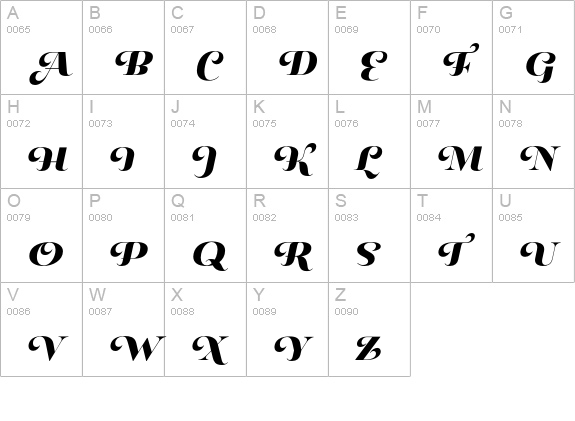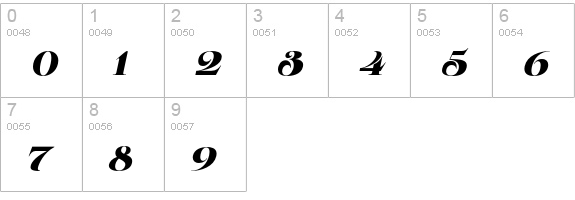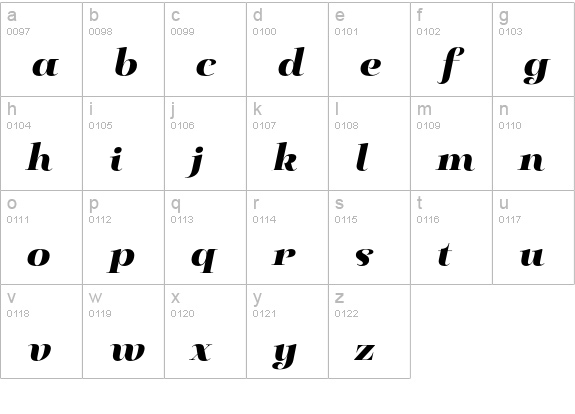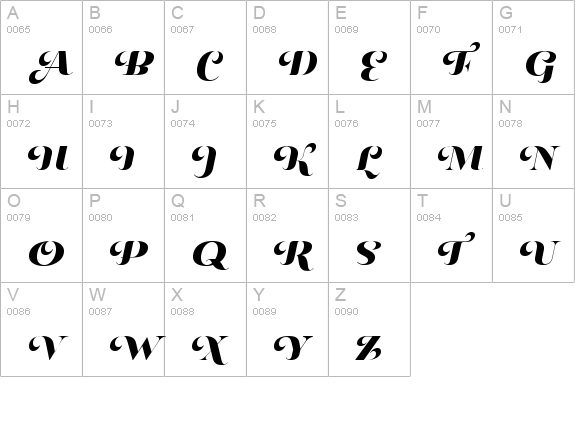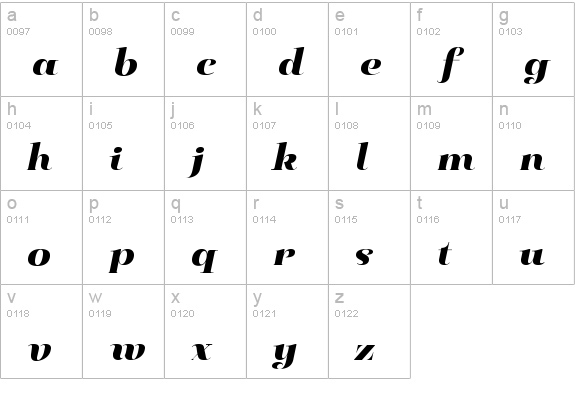
Pauline Didone Black Italic Font Details
Pauline Didone Black Italic is a maximum-weight, dramatic, italic variant in the Pauline typeface family \xE2\x80\x94 well suited to maximum-impact headlines, posters, and packaging.
Pauline Didone Black Italic font is a stunning display typeface that exudes elegance and sophistication. With its sleek and modern design, this font is perfect for adding a touch of luxury to your designs. The italic style adds a dynamic and stylish flair, making it ideal for headlines, logos, and branding projects. This font features sharp, clean lines and a timeless aesthetic that will elevate any design project. Whether you're creating a fashion magazine, luxury brand packaging, or elegant wedding invitations, Pauline Didone Black Italic font will make a bold statement. Best of all, this exquisite font is available for free download at FontsMarket.com. So why wait? Add a touch of glamour to your designs with Pauline Didone Black Italic font today!